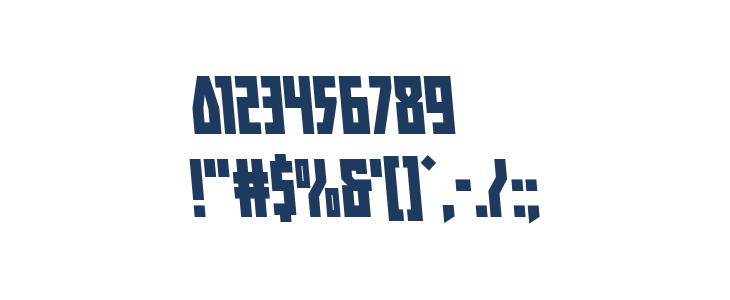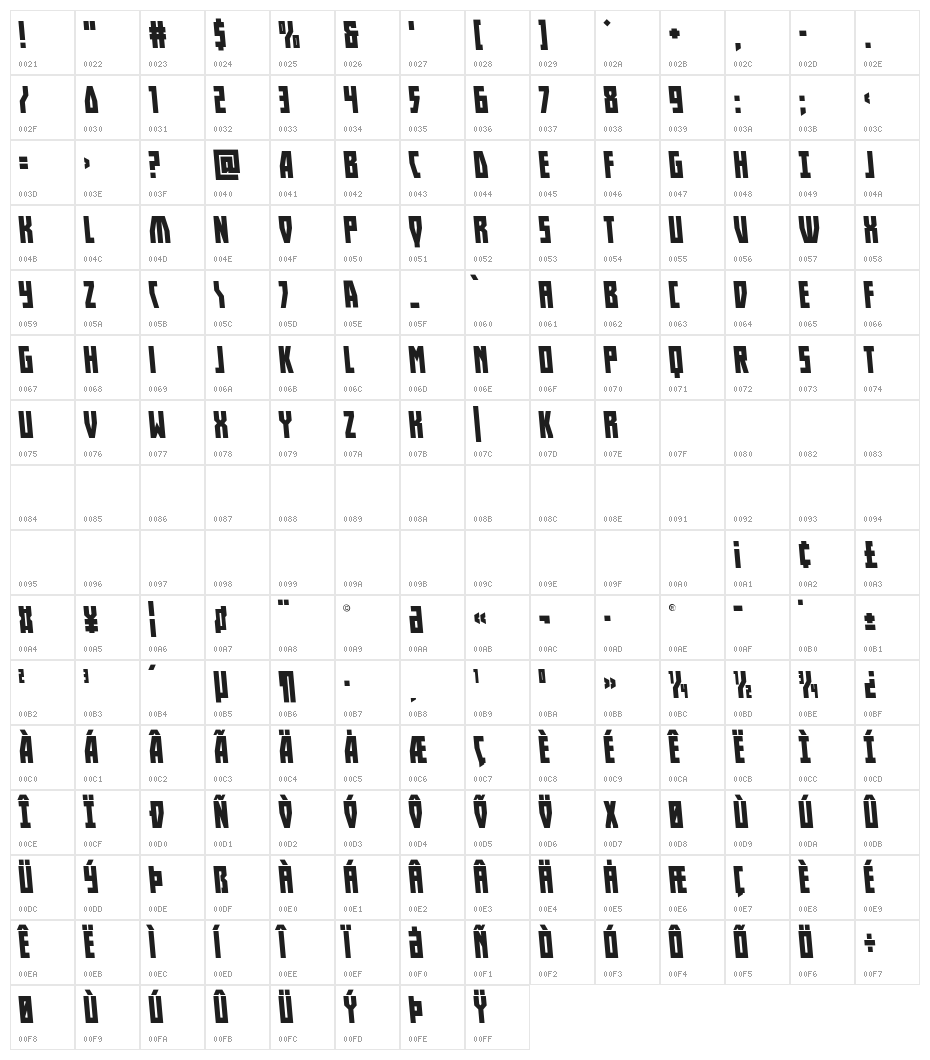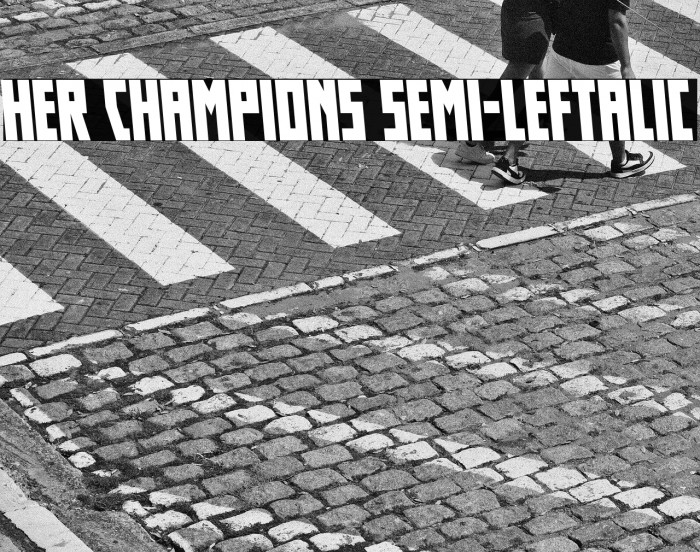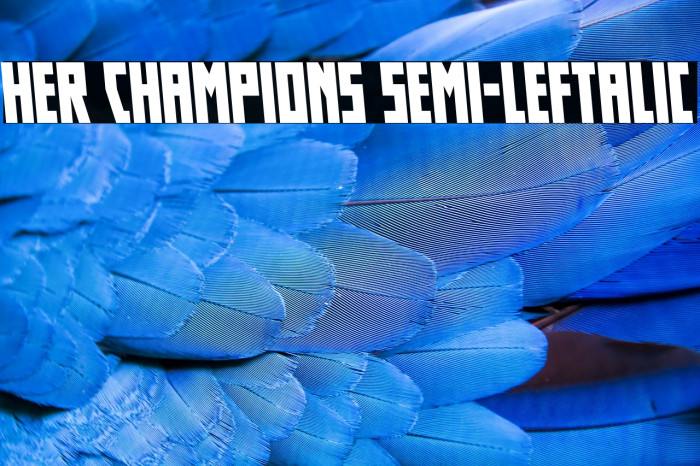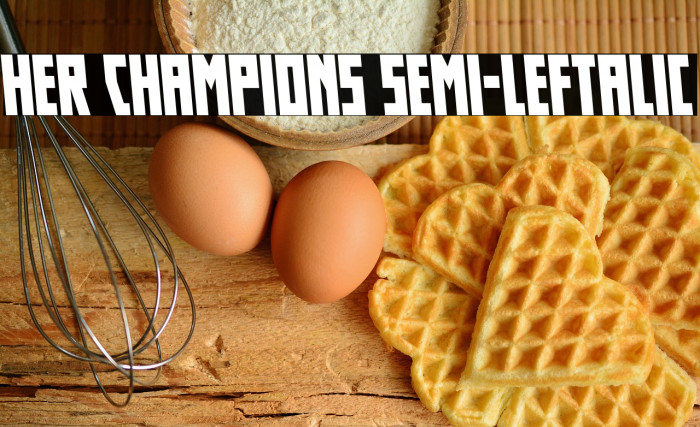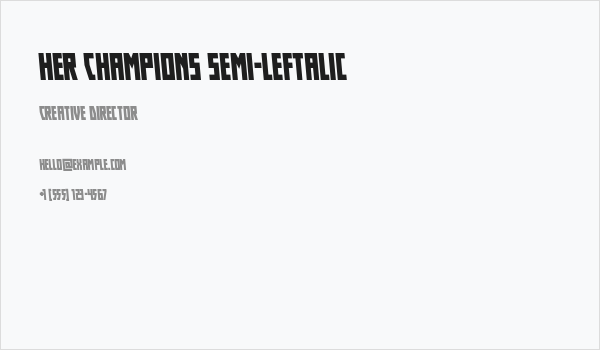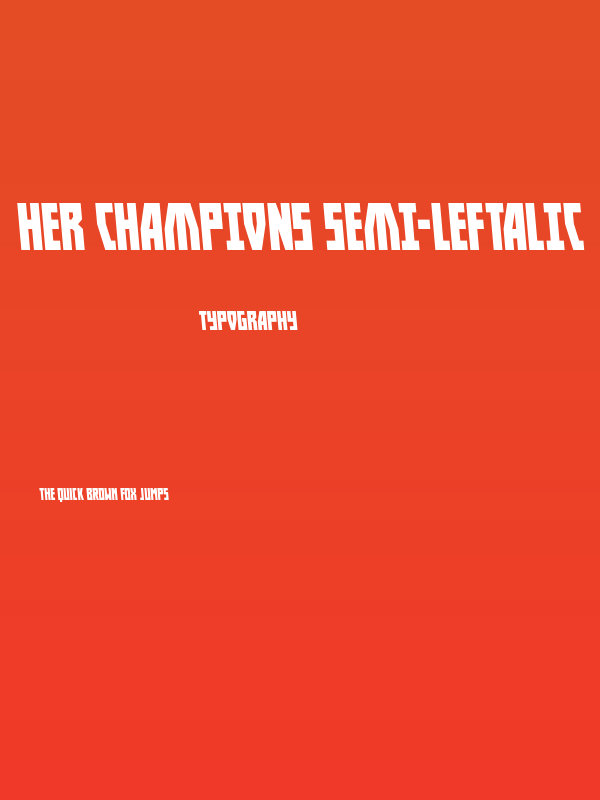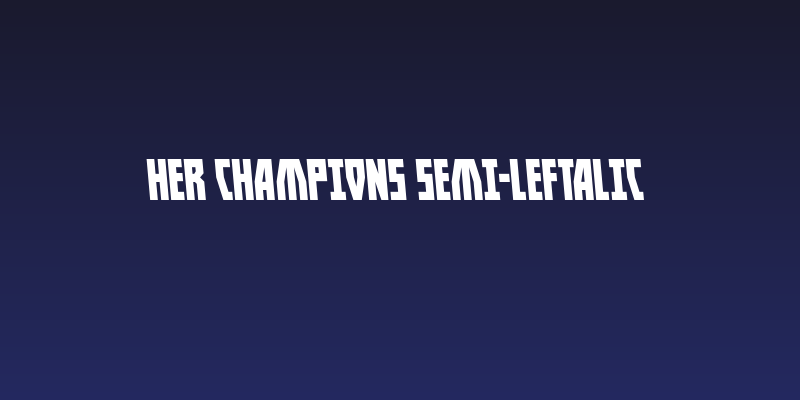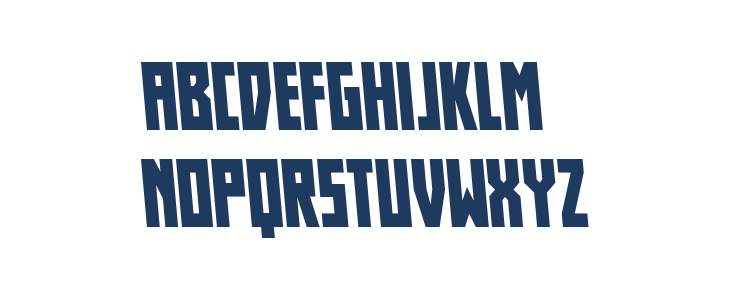
Her Champions Semi-Leftalic Font
Her Champions Semi-Leftalic Description
This font features a bold, angular design with a strong geometric influence. The characters are sharply defined with a distinct slant, giving them a dynamic and energetic appearance. The uppercase letters are particularly striking, with a uniform height and width that creates a cohesive look. The numbers and special characters maintain the same bold style, ensuring consistency across all text elements. This font's unique style makes it stand out, making it ideal for attention-grabbing designs.
| Proposed Projects | Ideal for sports branding, poster headlines, and dynamic logo designs. |